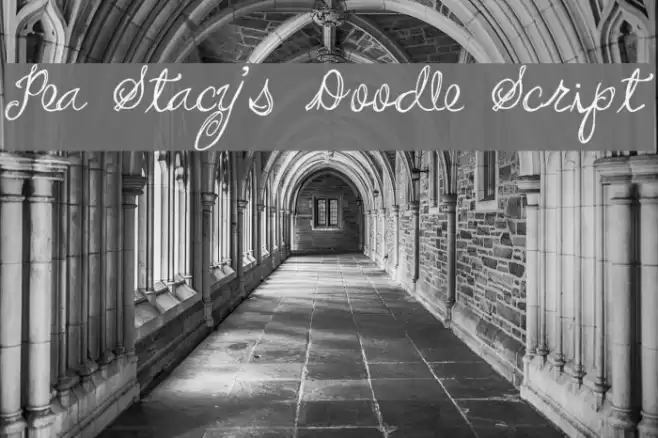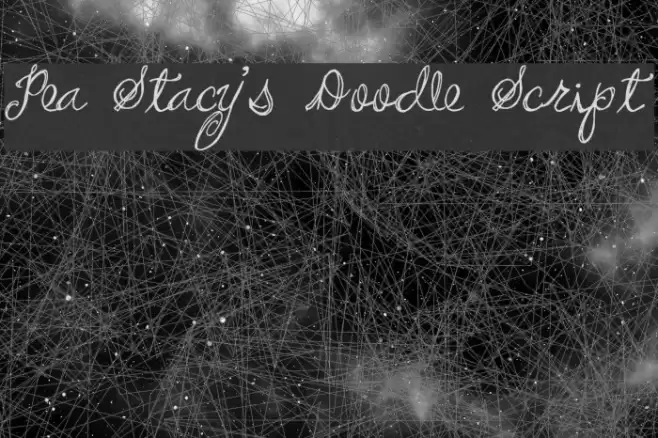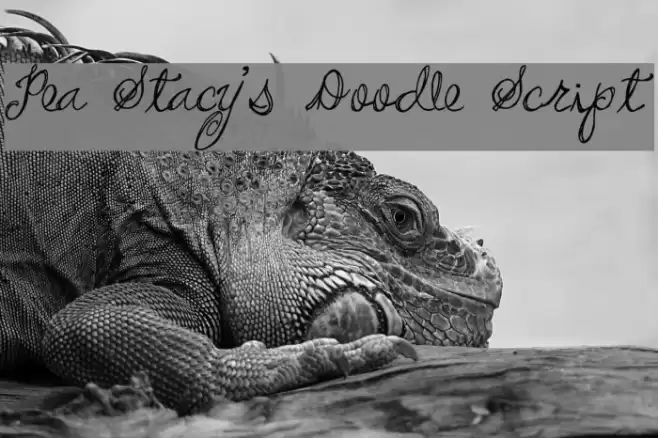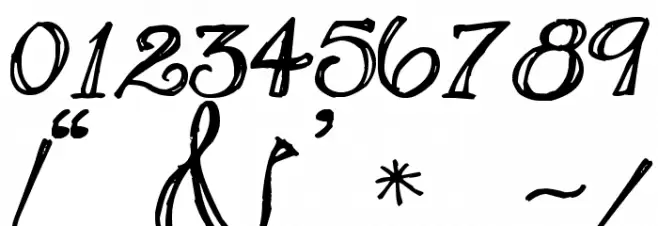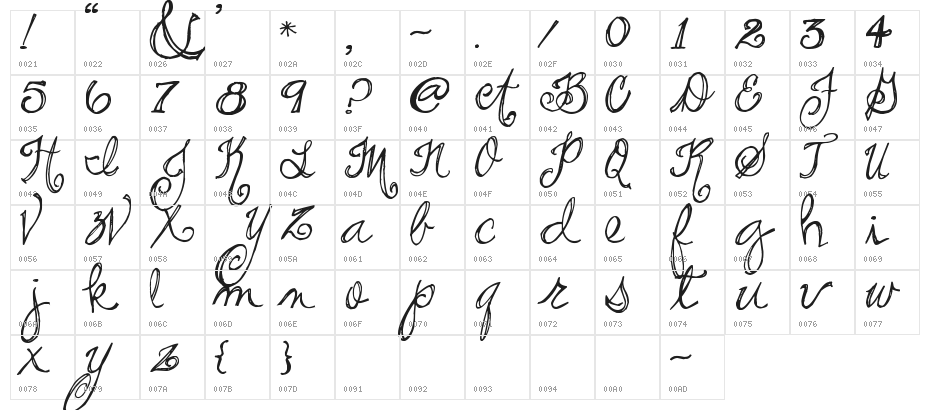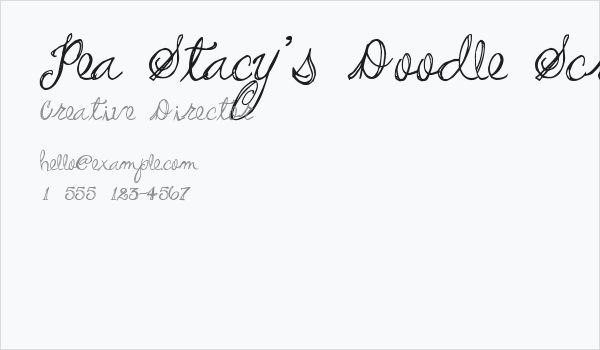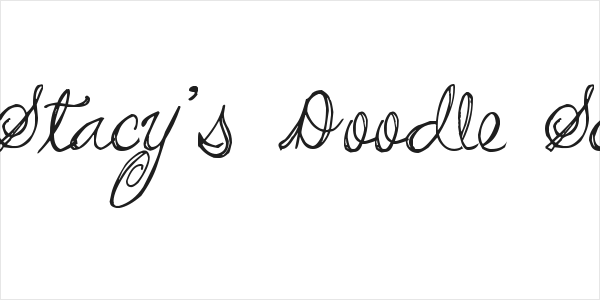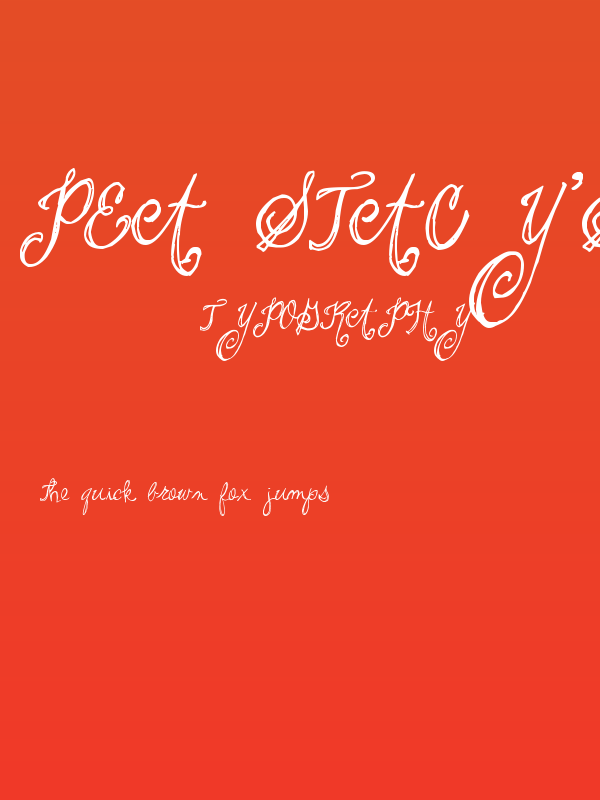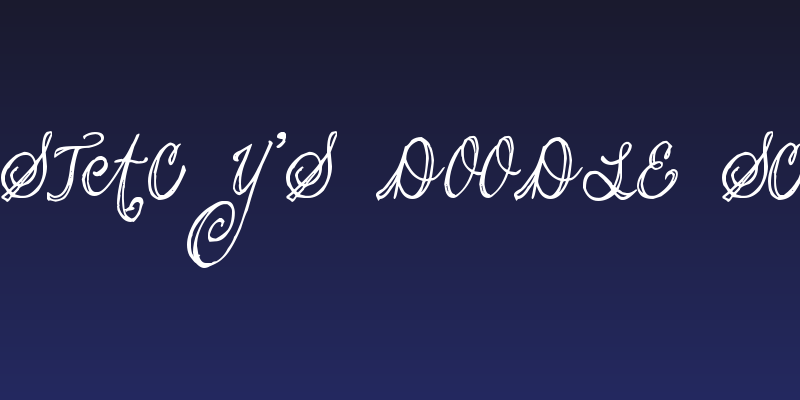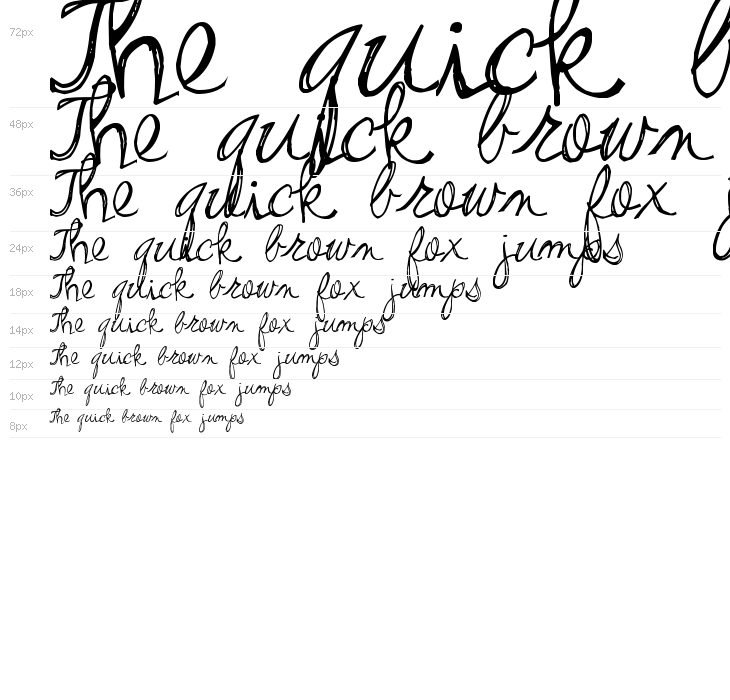
Pea Stacy's Doodle Script Font
Pea Stacy's Doodle Script Description
This font exudes a playful and whimsical charm, characterized by its flowing, cursive script style. Each letter is adorned with unique, intricate swirls and loops, giving it a hand-drawn, artistic feel. The uppercase letters are particularly elaborate, with exaggerated curves and flourishes, while the lowercase letters maintain a more consistent flow. The numbers and special characters follow the same decorative theme, ensuring a cohesive look across all elements. This font is perfect for projects that require a personal, creative touch, such as invitations, greeting cards, or artistic branding.
A playful, whimsical cursive script with intricate swirls and loops from Uncategorized fonts.
- Proposed Projects: Ideal for invitations, greeting cards, artistic branding, and creative projects.
- Use Case: Headlines, Artistic projects, Invitations